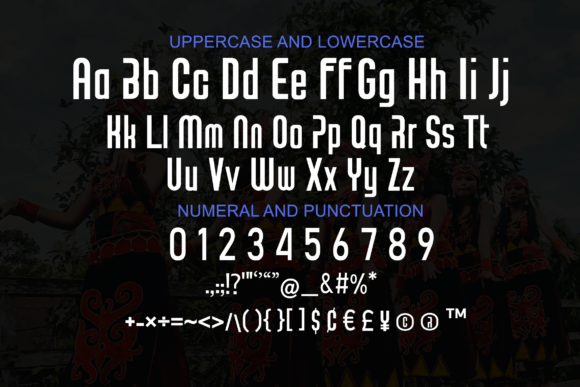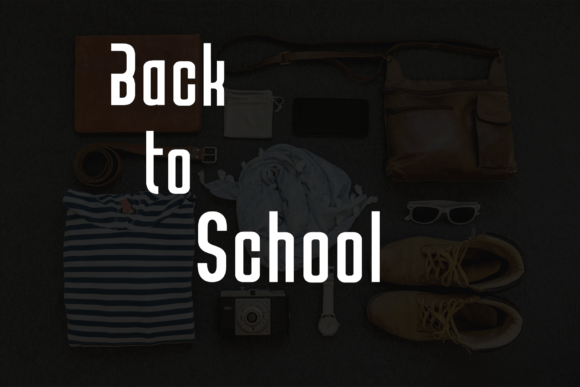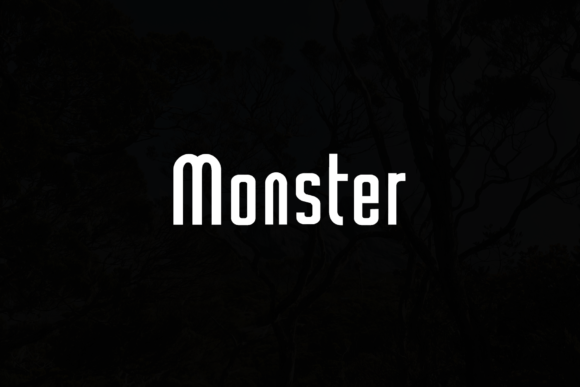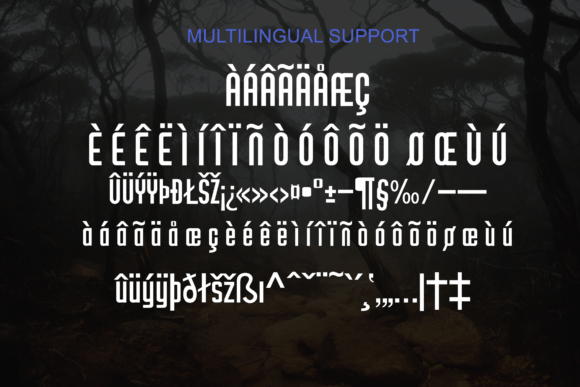
Introducing Borneo Pro Font: The Ultimate Sans Serif for Modern Designs
Are you a designer, craftsperson, or creative looking for the perfect font to elevate your projects? Look no further than Borneo Pro Font, a stunning Sans Serif typeface inspired by the breathtaking beauty of Borneo Island. This versatile font is designed to meet the diverse needs of modern designers, making it an ideal choice for branding, logos, urban design, advertising, and more.
The Inspiration Behind Borneo Pro
Borneo, the third-largest island in the world, is a treasure trove of natural wonders, rich cultures, and vibrant cities. From the lush rainforests to the majestic mountain ranges, Borneo’s diverse landscapes and eclectic mix of cultures have inspired a font that embodies the essence of modernity and sophistication. Borneo Pro Font captures the island’s energetic and adventurous spirit, making it perfect for designs that require a fresh and contemporary look.
Key Features of Borneo Pro Font
- Clean and Modern Design: Borneo Pro boasts a sleek, Sans Serif design that exudes modernity and elegance, making it suitable for a wide range of applications.
- High Versatility: This font is designed to be versatile, allowing you to use it for various design projects, from branding and logos to urban design, advertising, and more.
- Urban and Adventurous Feel: The font’s unique characteristics evoke the spirit of urban adventures, making it perfect for designs that require a bold and dynamic look.
Use Cases for Borneo Pro Font
Borneo Pro Font is an excellent choice for various design projects, including:
- Branding and Logo Design: Create a lasting impression with a font that communicates modernity and sophistication.
- Urban Design: Use Borneo Pro to create visually appealing urban designs, such as posters, flyers, and billboards.
- Modern Advertising Design: Elevate your advertising designs with a font that captures the attention of your audience.
- Albums and Music: Add a touch of modernity to your music albums, concert posters, or music videos.
- Special Events: Make your event branding stand out with a font that exudes elegance and sophistication.
- Clothing and Fashion: Use Borneo Pro to create stylish and modern typography for your clothing brand or fashion designs.
Why Choose Borneo Pro Font?
With Borneo Pro Font, you can:
- Enhance Your Designs: Elevate your designs with a modern and sophisticated font that captures the essence of Borneo Island.
- Stand Out: Use Borneo Pro to create unique and eye-catching designs that set you apart from the competition.
Borneo Pro Font is an exceptional Sans Serif typeface that embodies the spirit of modernity and adventure. With its clean design, high versatility, and urban feel, this font is perfect for designers, craftspersons, and creatives looking to elevate their projects. Whether you’re working on branding, logos, urban design, or advertising, Borneo Pro Font is an excellent choice. Download Borneo Pro Font today and experience the difference it can make in your designs!